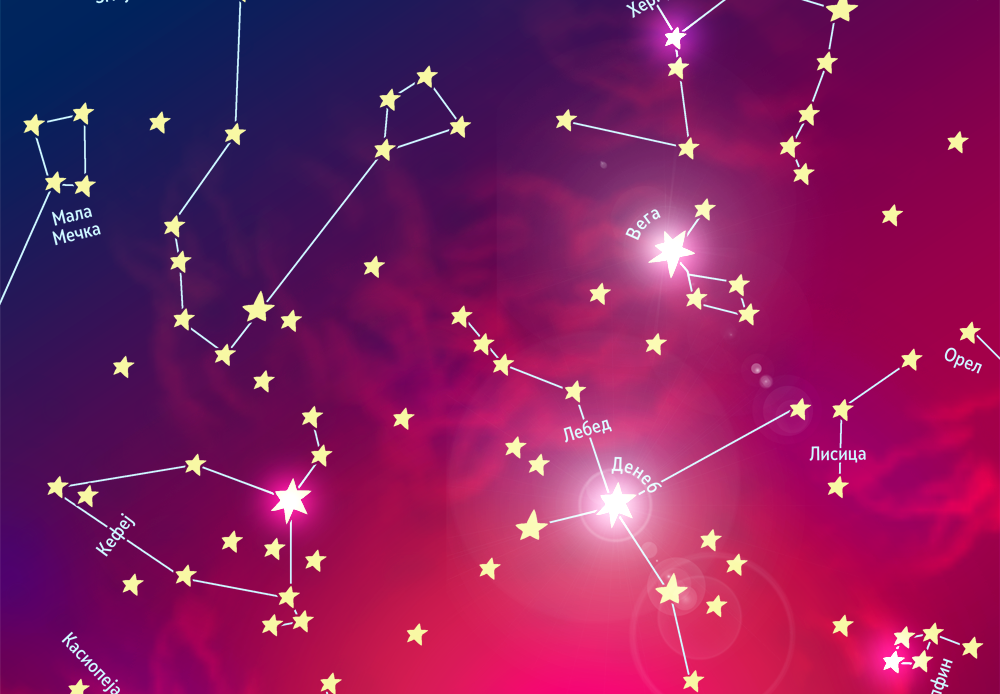
Welcome to the realm of Constellations Font: a cosmic treasure trove of dingbats, ready to infuse your creative projects with a touch of the cosmos. Designed by the skilled hand of astevanov, these celestial symbols are more than just fonts—they're portals to a universe of imagination and wonder.
With Constellations Font, your designs will shimmer like star-studded skies, capturing the essence of distant galaxies and the awe-inspiring beauty of the cosmos. These enchanting dingbats will transport you to a realm where imagination runs wild, and creativity knows no bounds.
Whether you're a seasoned designer or just starting your creative journey, Constellations Font is the perfect companion for adding a cosmic flair to your projects. Embrace the allure of the universe and let your imagination soar.
Step into the world of Constellations Font and unlock a universe of creative possibilities. Let your designs radiate with the brilliance of celestial bodies and captivate your audience with the allure of the cosmos.